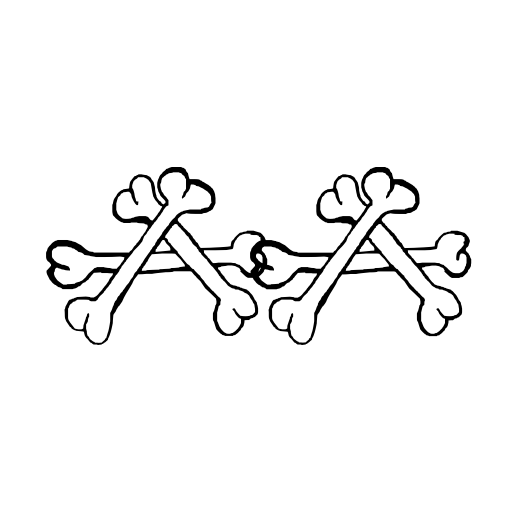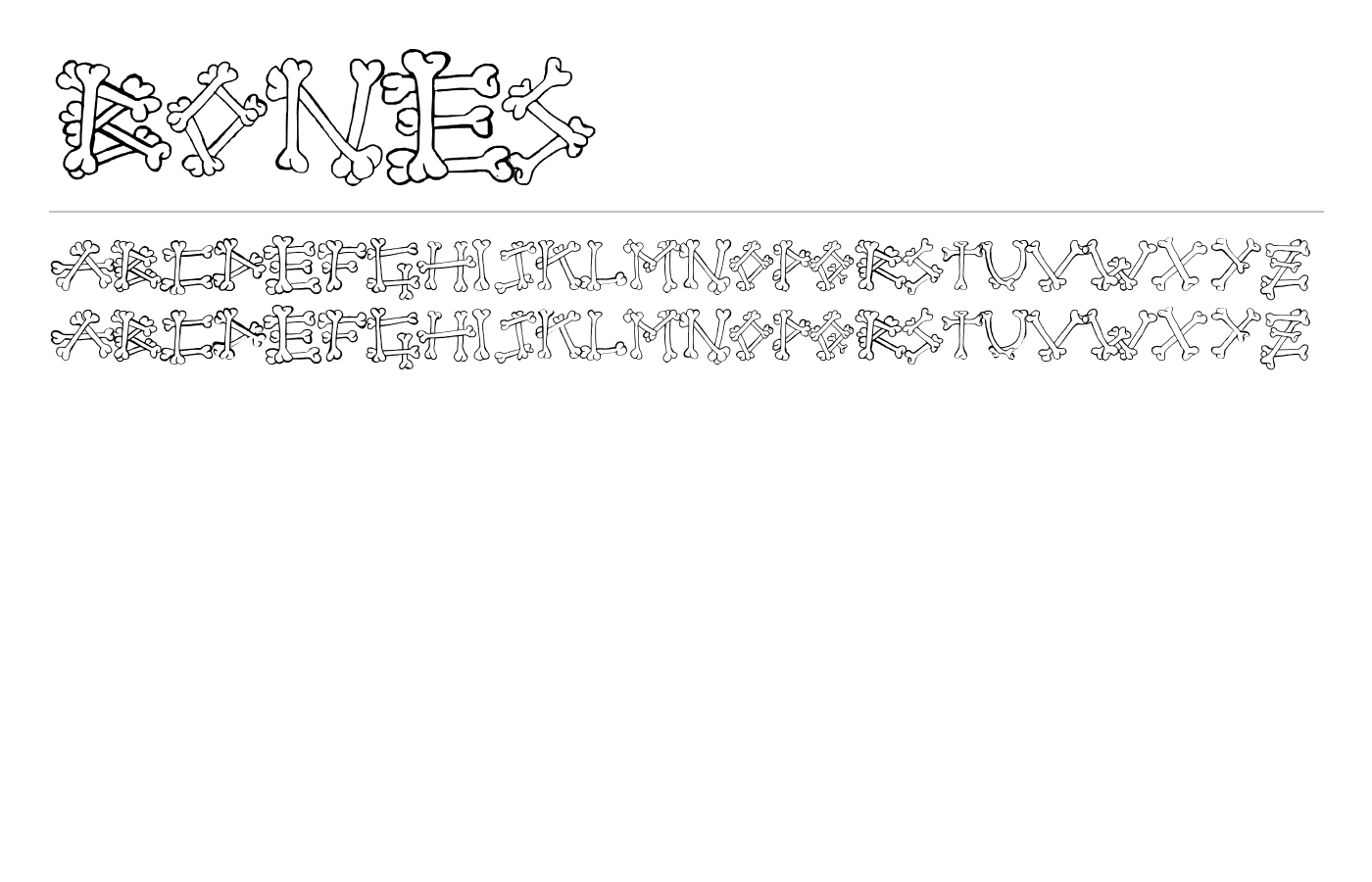
Bones2 is a playful decorative font that creatively uses bone shapes to form uppercase letters, giving it a quirky and spooky vibe. Its irregular, hand-drawn style makes it ideal for Halloween themes, fun posters, or any design needing a whimsical, skeletal touch. Because of its strong visual personality, it works best in headlines or titles rather than body text.
Bones2 Font
About Bones2 Font